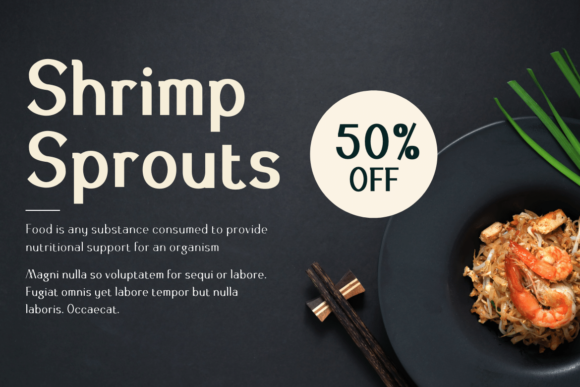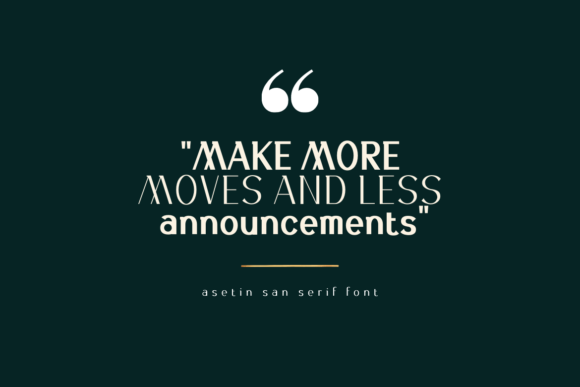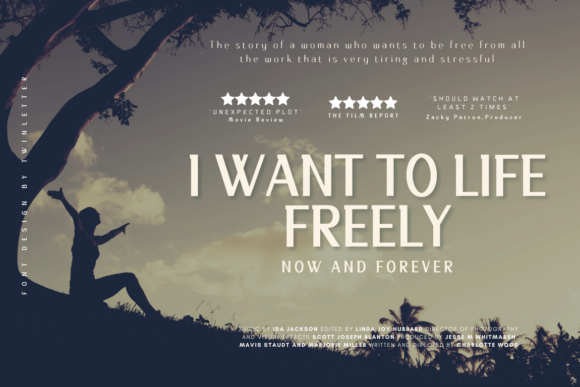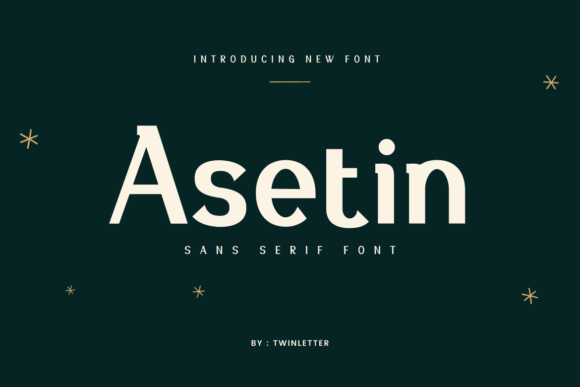
The Ultimate Design Hack: Discovering the Versatility of Asetin Font
I’ll never forget the time I was working on a project for a client who needed a modern, sleek font to match their brand’s new image. I had spent hours scouring through font libraries, but nothing seemed quite right. That was until I stumbled upon Asetin Font. This cool and neat sans serif font has been a game-changer for my design workflow, and I’m excited to share its awesomeness with you! 😊
Asetin Font has quickly become a staple in my font library, and here’s why:
• ✨ Clean and modern design: Asetin’s sleek lines and minimalist aesthetic make it perfect for a wide range of design projects.
• ✅ Highly versatile: Whether you’re working on a logo, brochure, or social media graphics, Asetin adapts effortlessly to any design style.
• 💡 Excellent legibility: Even at small font sizes, Asetin remains crystal clear, making it ideal for body text or captions.
Of course, no font is perfect, and Asetin has a few minor quirks:
• 🤔 Limited italic variations: While Asetin does offer some italic styles, they’re not as extensive as some other fonts.
• ⚠️ Not ideal for body text in print: Due to its sleek design, Asetin might not be the best choice for lengthy print content, such as novels or articles.
The Story Behind Asetin: Designer Inspiration
Asetin Font was designed with the goal of creating a clean, versatile sans serif font that could be used across various design platforms. Inspired by modernist typography and geometric shapes, Asetin’s creator aimed to craft a font that would be both elegant and highly legible. The result is a font that’s perfect for designers, crafters, and creative hobbyists looking for a reliable, stylish addition to their font library.
What type of projects is Asetin best suited for? Asetin is an incredibly versatile font, making it suitable for a wide range of projects, from branding and logos to social media graphics, presentations, and more.
Does Asetin support OpenType features? Yes, Asetin supports OpenType features like ligatures, stylistic alternates, and more, allowing you to add an extra layer of creativity to your designs.
Is Asetin suitable for body text? While Asetin is highly legible, it might not be the best choice for lengthy body text, especially in print. However, it works well for short paragraphs, captions, or UI text.